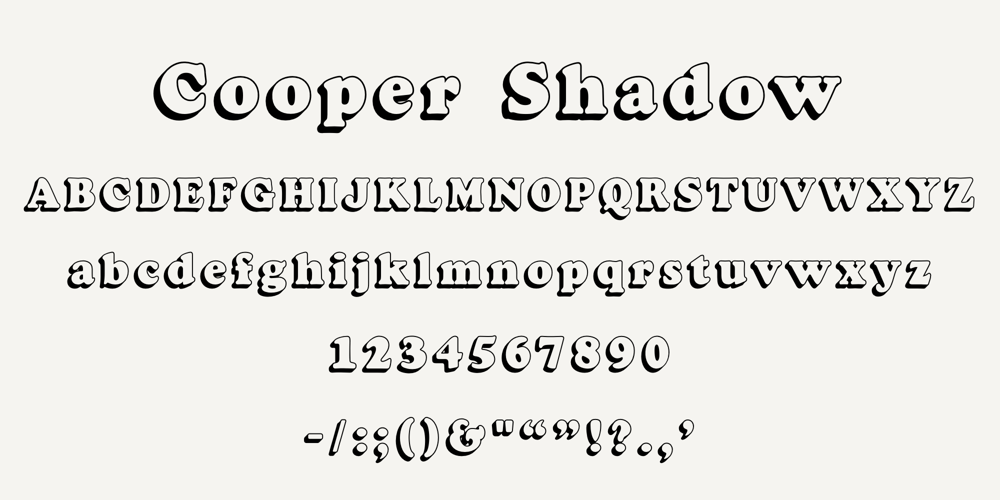
Cooper Shadow
Cooper Shadow font
Cooper Shadow Font Family was designed by Victoria C and published by Victoria Co Fonts. Cooper Shadow contains 1 styles and family package options. Cooper Shadow is a creative homage to the classic robustness of Cooper Black, now revitalized with a contemporary twist. This typeface preserves the beloved vintage charm and bold appeal of the original 1920s design while introducing a playful shadow effect that adds depth and dimension. With its eye-catching and impactful style, Cooper Shadow is perfect for designers looking to inject personality and a touch of retro flair into their projects. Whether it’s for standout headlines, branding, or advertising, Cooper Shadow will give your work a unique, stylish edge that’s both nostalgic and fresh.